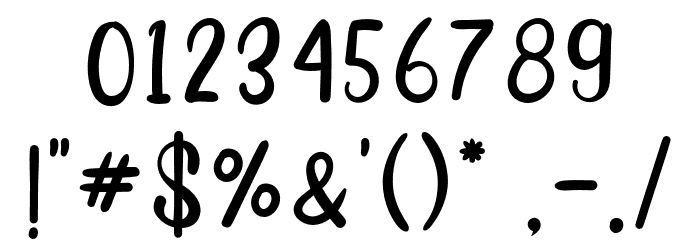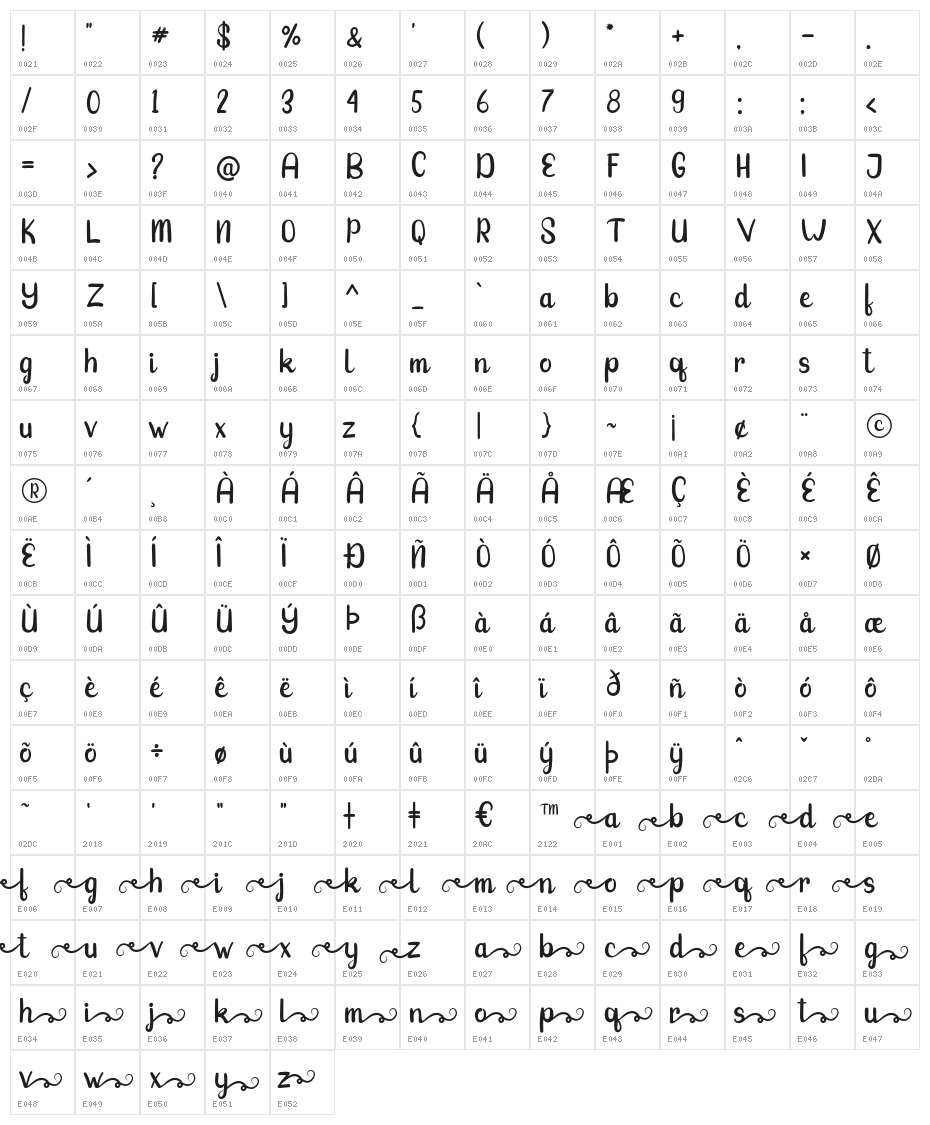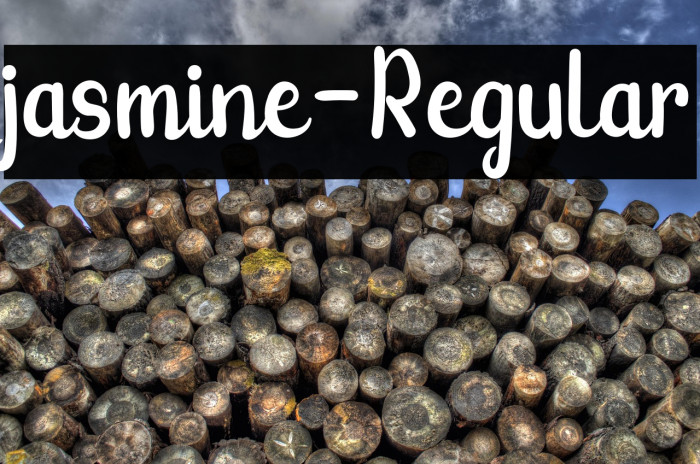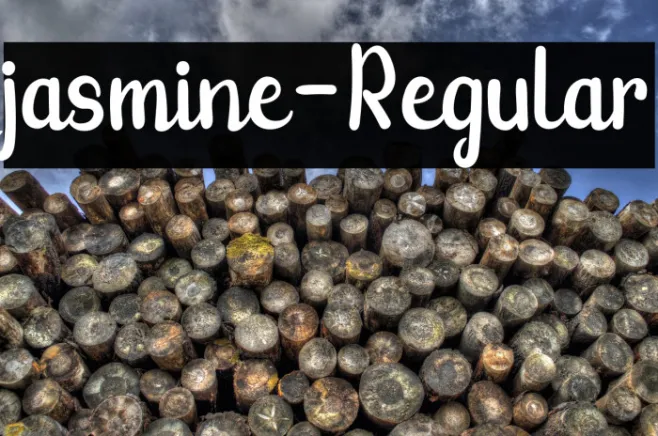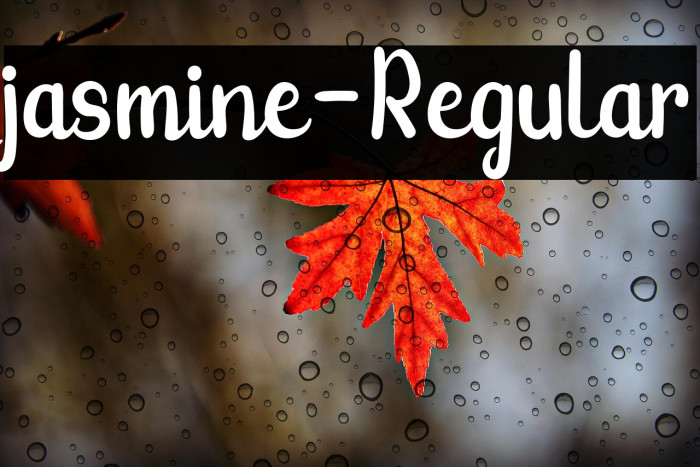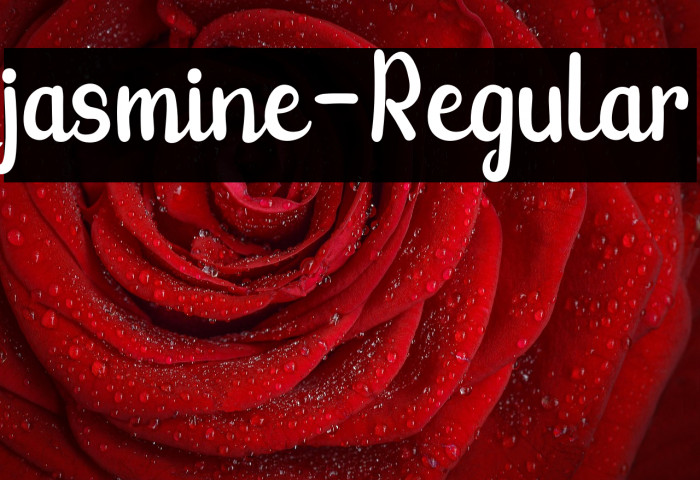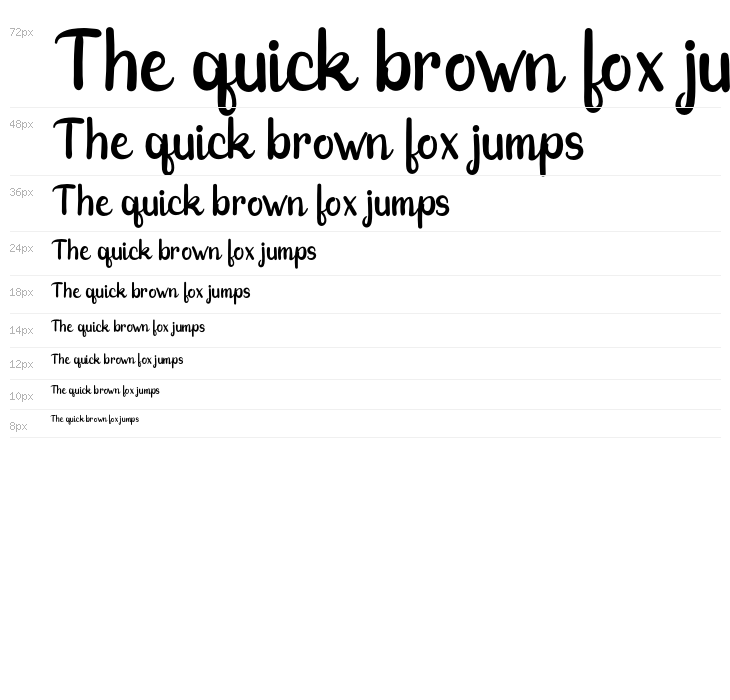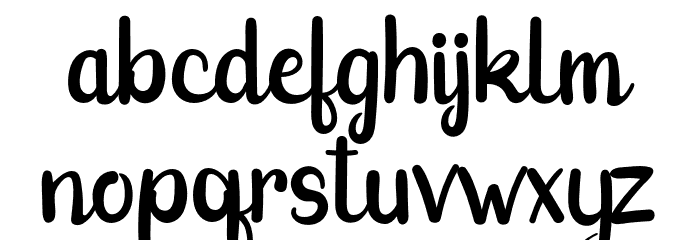
jasmine-Regular Font
jasmine-Regular Description
This font features a playful and casual handwritten style, characterized by its rounded and slightly irregular letterforms. The uppercase letters are bold and prominent, while the lowercase letters maintain a consistent flow with a touch of whimsy. The numerals are clear and easy to read, matching the overall style of the alphabet. Special characters are well-integrated, maintaining the font's cohesive look. The strokes are consistent in thickness, providing a balanced appearance that is both approachable and friendly.
| Proposed Projects | Ideal for greeting cards, children's books, playful branding, and casual invitations. |